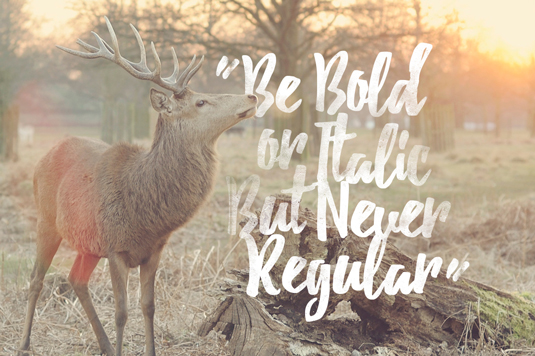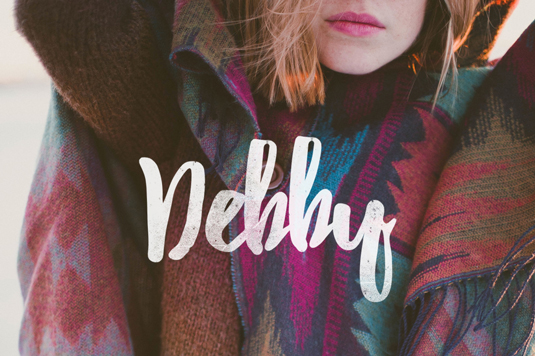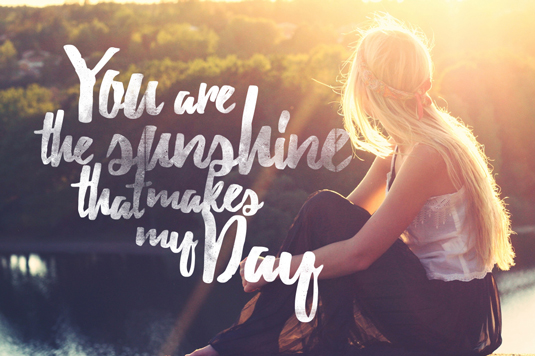
Font of the day: Debby
Every day we showcase the best fonts on the web. Today it's Debby from Artimasa Studio, which is free to download.
Debby from Artimasa Studio
Today's typeface of choice is Debby from the team at Artimasa Studio. Available from Behance Debby is descirbed as 'a hand-drawn brush typeface to make your works look natural. It's designed to feel personal and imperfect; the irregular bouncy characters and the rough shapes speak for itself. You can use it for anything from wedding invitations, poster, logos, greeting cards and more'.